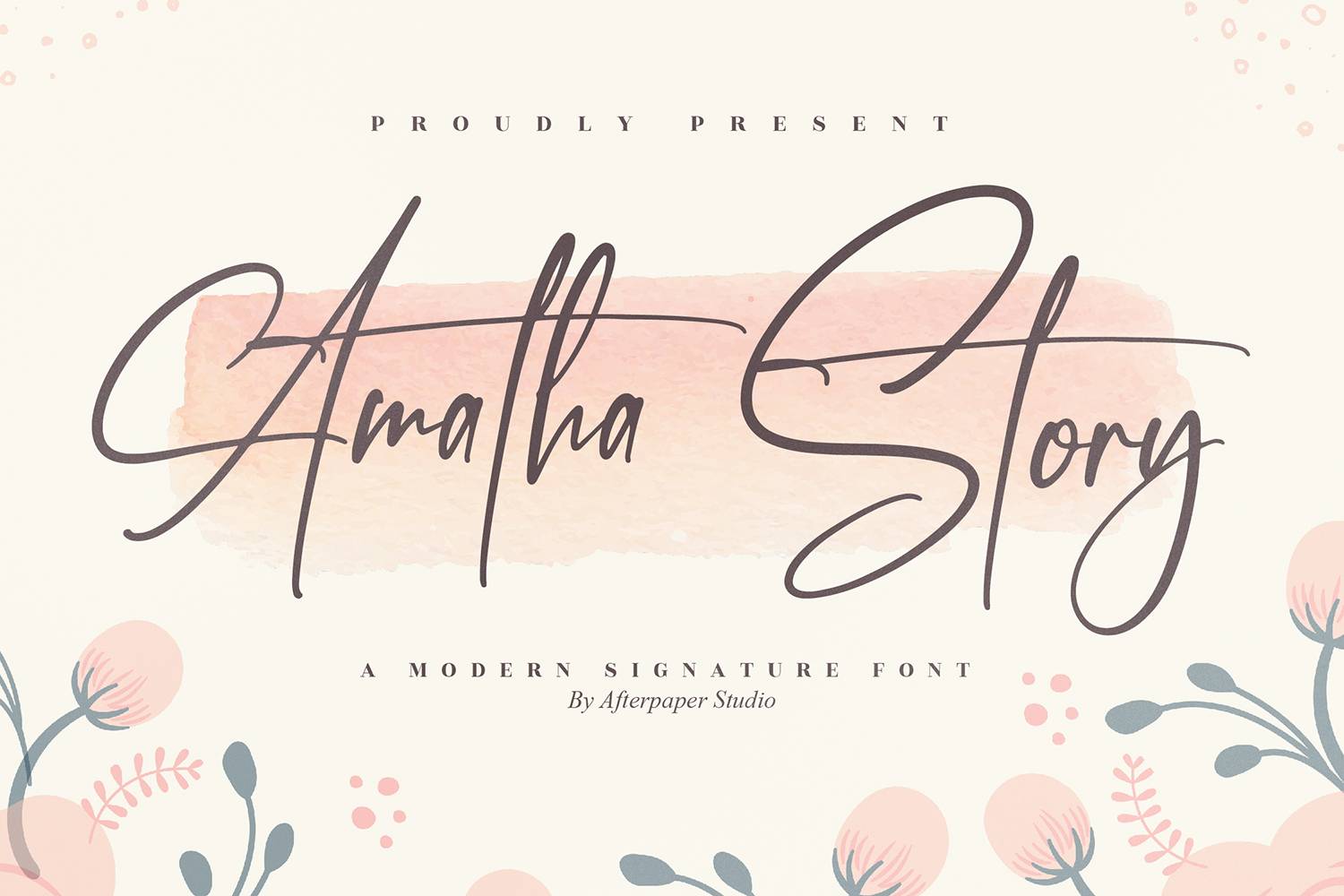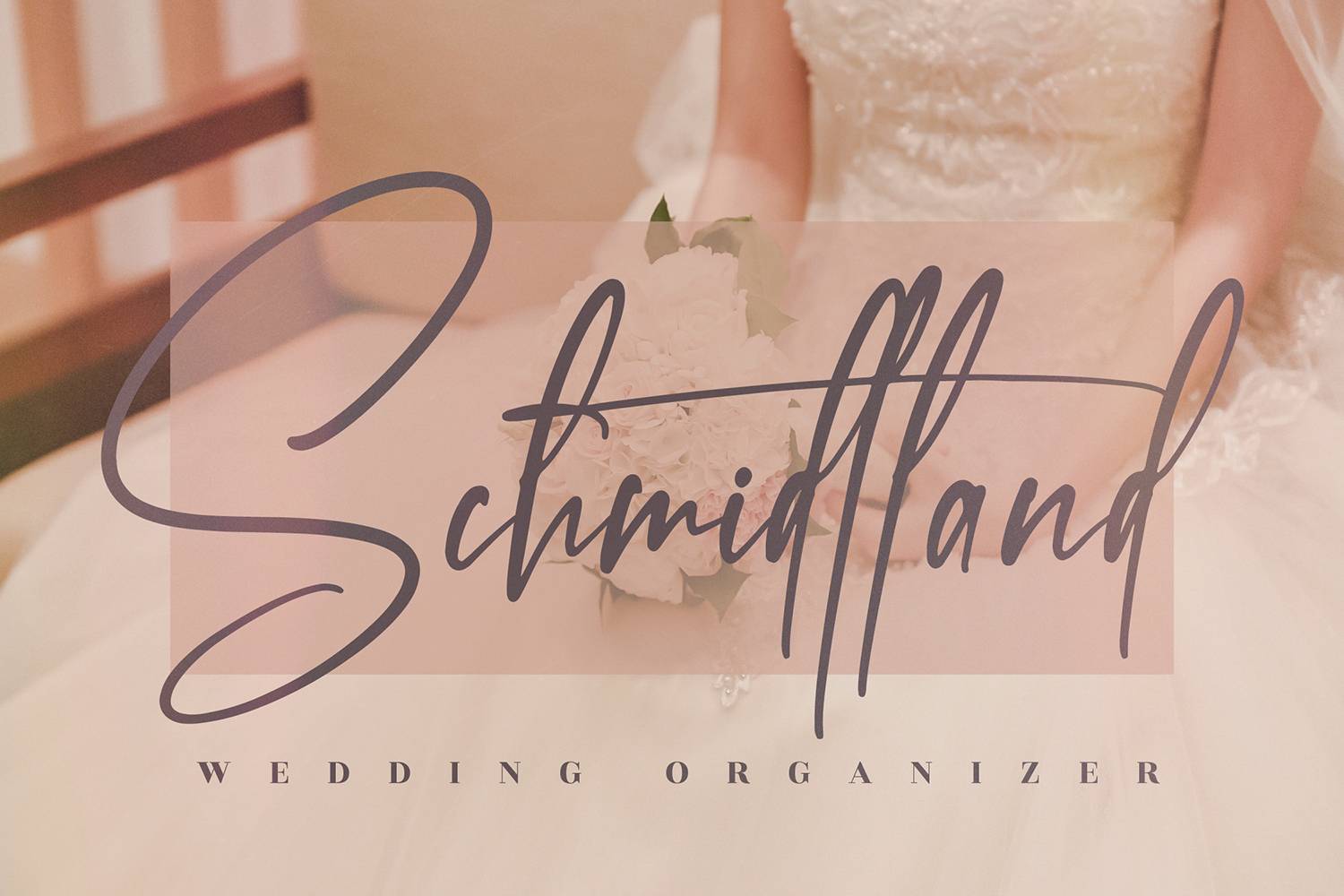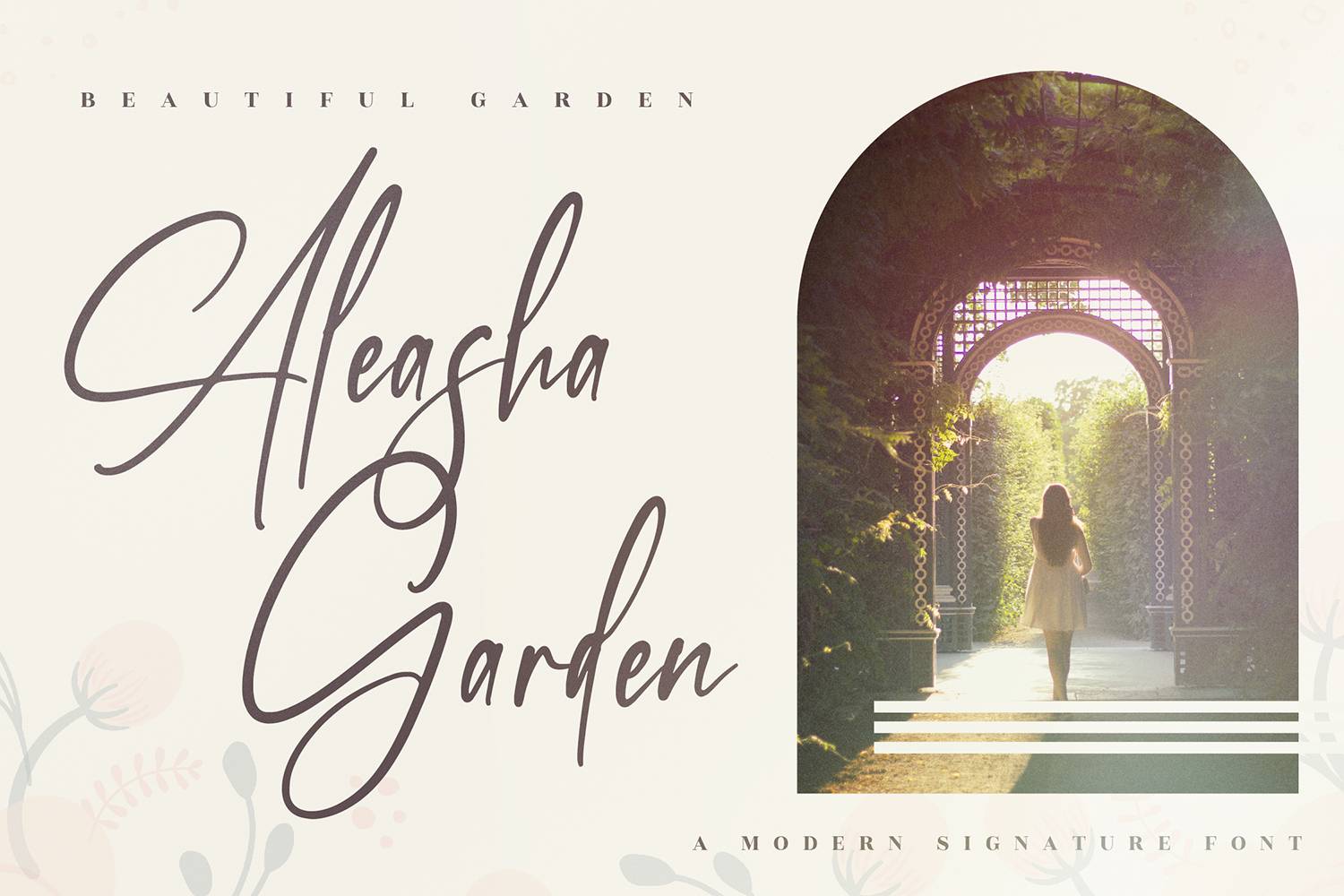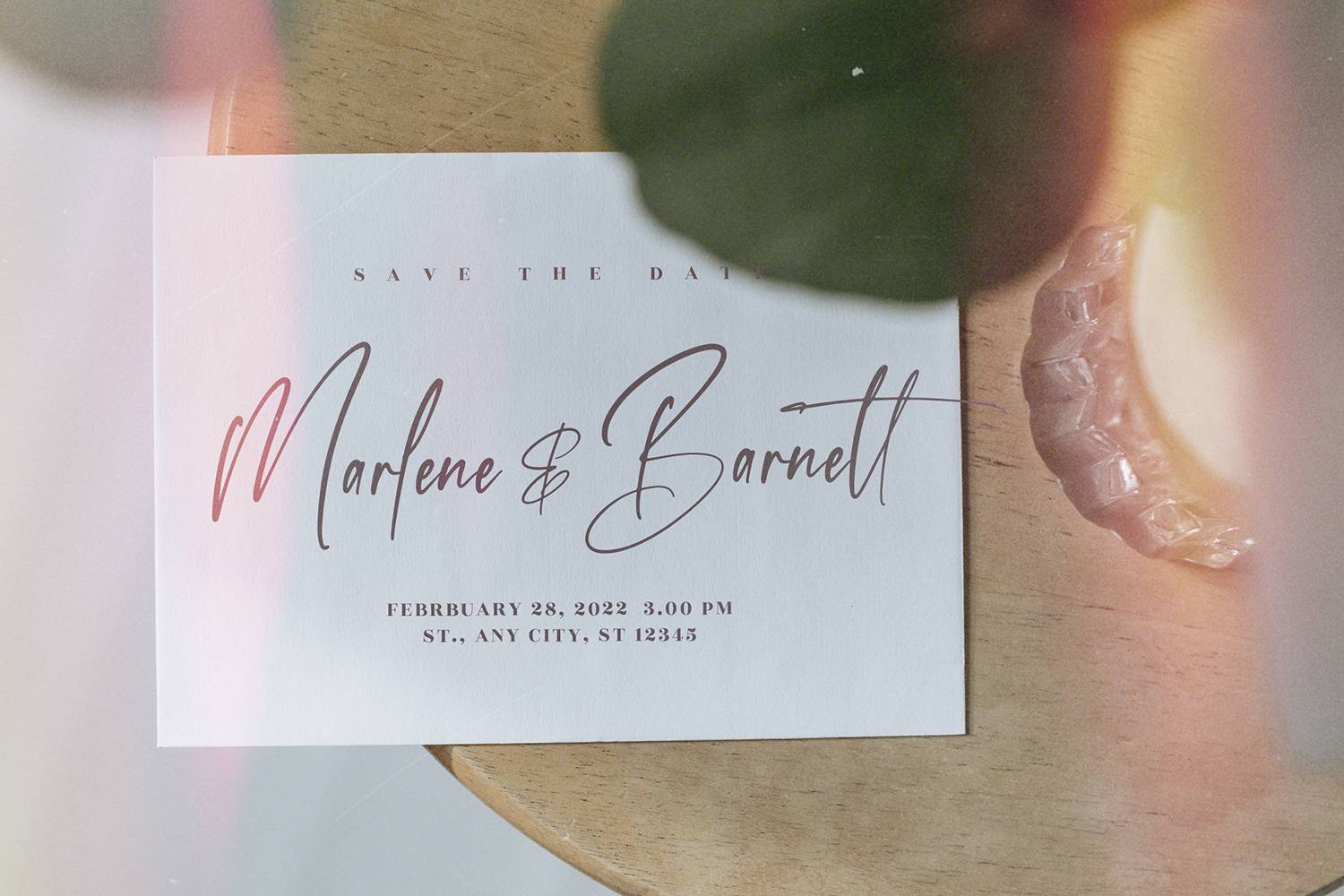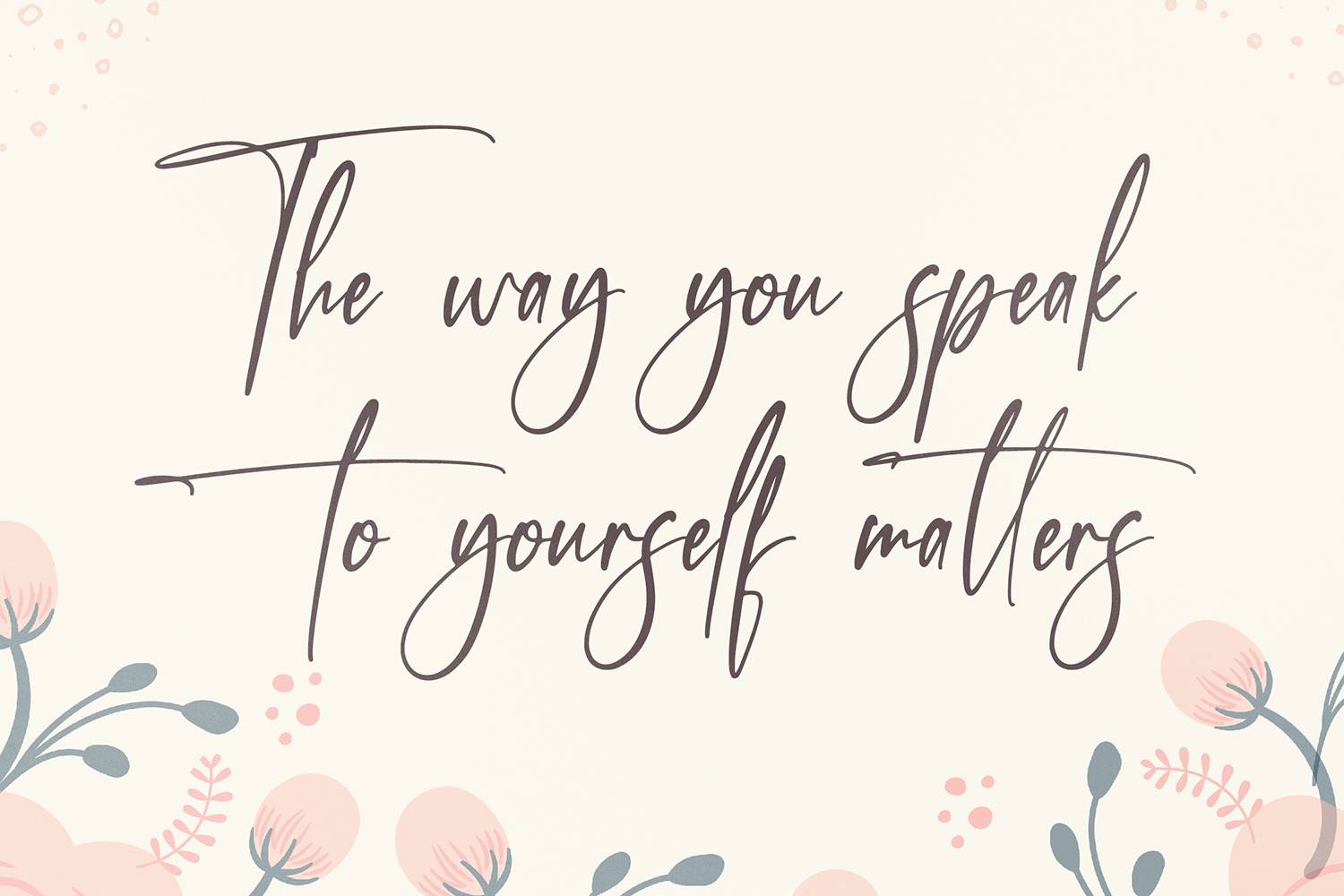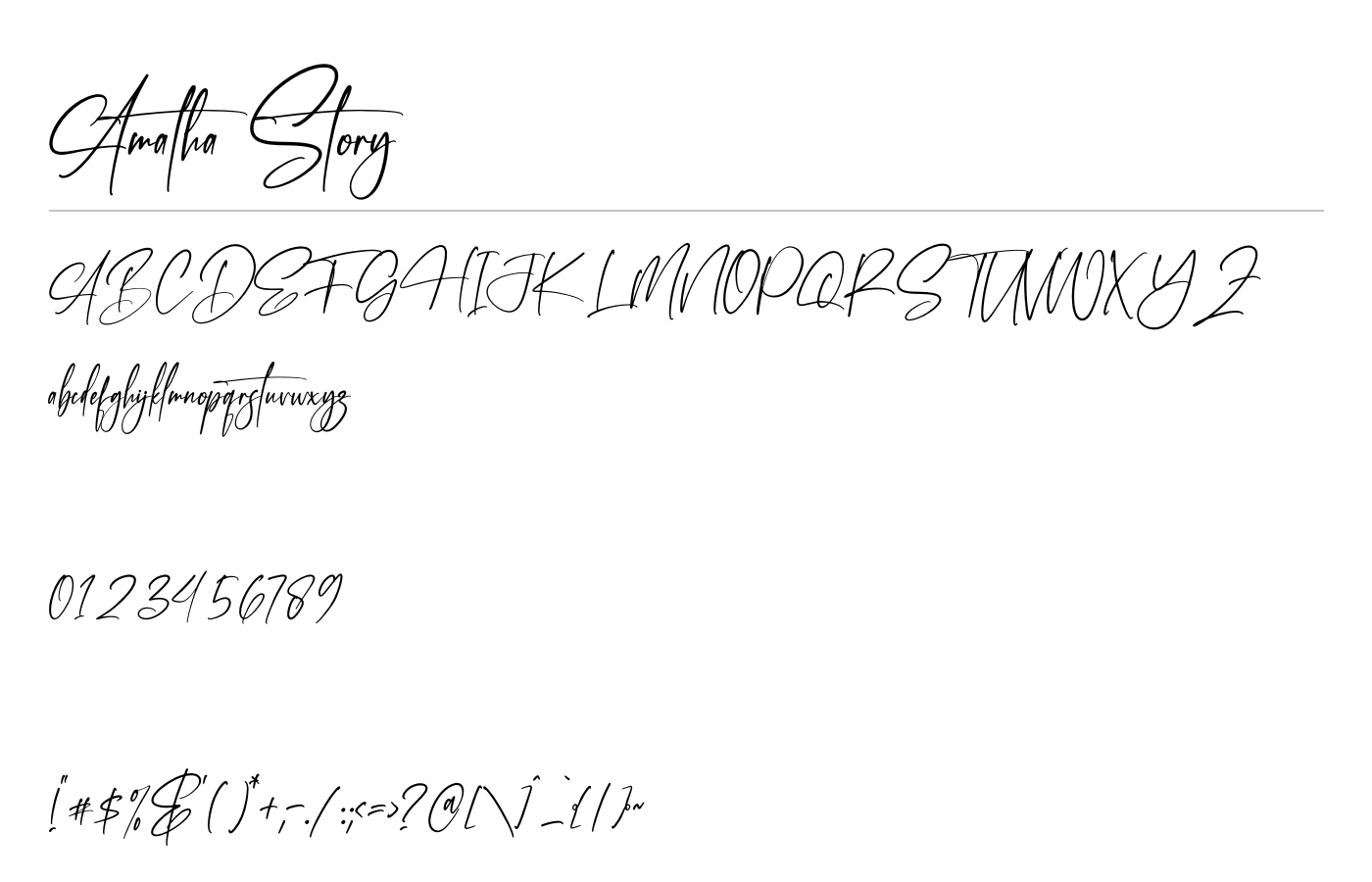
Amatha Story is an elegant, handwritten script font characterized by its thin, delicate strokes and flowing, natural curves. Its tall, narrow letterforms with varying stroke widths give it a sophisticated yet personal feel, making it ideal for branding, invitations, and creative projects that require a touch of refined individuality. This font works beautifully in headlines and logos where style and grace are paramount.
Amatha Story Font
About Amatha Story Font